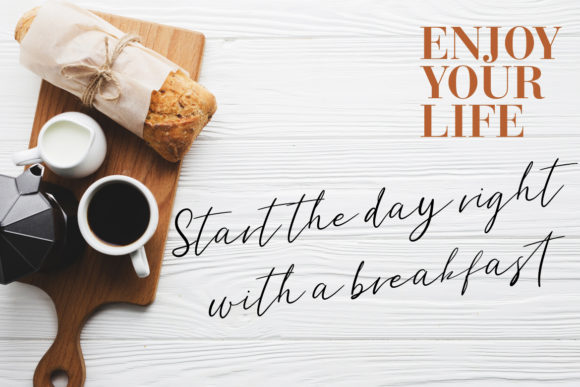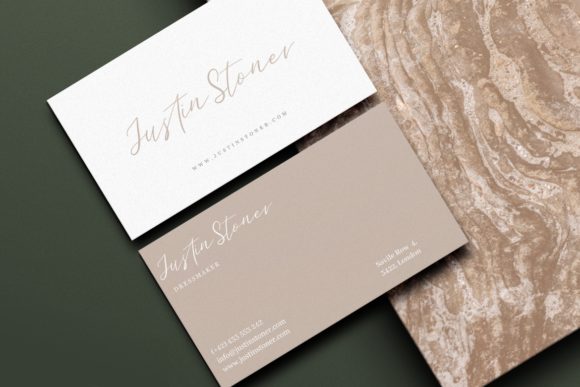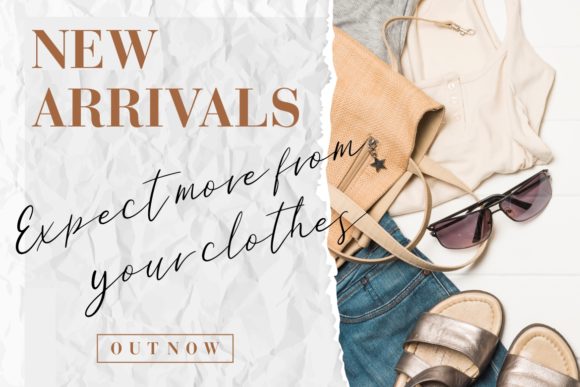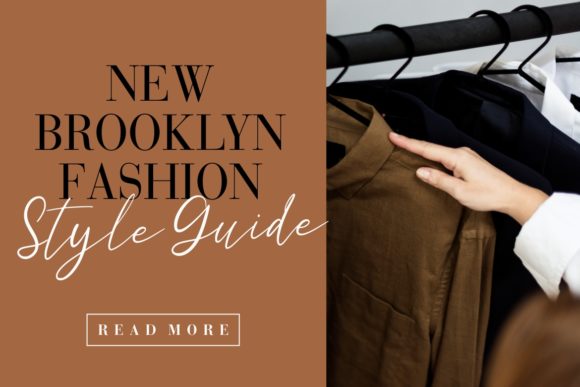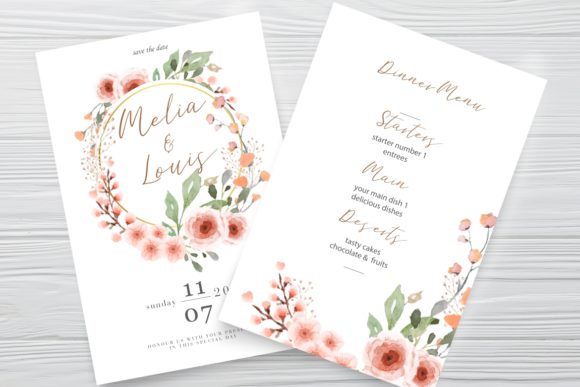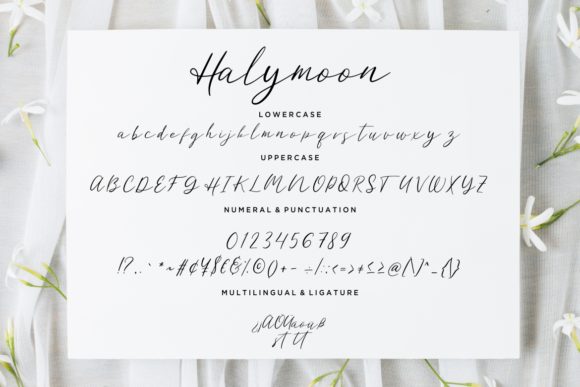
Introducing Halymoon Font: Elevate Your Designs with Elegance and Sophistication
In the world of typography, a font can make or break the aesthetic of a design. For those seeking a touch of elegance and sophistication, Halymoon Font is an exceptional choice. This stylish and incredibly elegant script font has been gaining popularity among designers and crafters for its versatility and stunning appearance.
What Makes Halymoon Font Stand Out?
Halymoon Font is a beautifully crafted script font that exudes a sense of luxury and refinement. Its flowing lines, intricate details, and delicate strokes make it perfect for designs that require a handwritten touch. Whether you’re working on wedding invitations, thank you cards, quotes, greeting cards, logos, or business cards, Halymoon Font is sure to impress.
Wedding planners, event coordinators, and designers will love Halymoon Font for its romantic and whimsical feel. It’s ideal for creating stunning wedding invitations, save-the-date cards, and event programs that set the tone for a memorable occasion. The font’s elegant appearance also makes it suitable for designing thank you cards, congratulations cards, and other stationery items.
Halymoon Font is not limited to wedding and event designs. Its versatility makes it a great choice for a wide range of design applications, including:
- Logos and branding materials: Add a touch of sophistication to your logo and brand identity with Halymoon Font.
- Business cards and stationery: Elevate your business cards, letterheads, and invoices with this elegant font.
- Social media graphics: Use Halymoon Font to create eye-catching social media graphics, quotes, and inspirational messages.
- Packaging design: Add a personal touch to your product packaging with this beautiful script font.
Why Choose Halymoon Font?
There are many script fonts available, but Halymoon Font stands out for its unique characteristics and benefits. Here are a few reasons why designers and crafters love Halymoon Font:
- Elegant and sophisticated: Halymoon Font adds a touch of luxury and refinement to any design.
- Highly legible: Despite its intricate details, Halymoon Font remains highly legible, making it perfect for body text and captions.
- Versatile: This font can be used for a wide range of design applications, from wedding designs to branding and packaging.
Tips for Using Halymoon Font Effectively
To get the most out of Halymoon Font, here are some tips for using it effectively:
- Pair it with contrasting fonts: Combine Halymoon Font with sans-serif or serif fonts to create visual interest and hierarchy.
- Experiment with colors: Try pairing Halymoon Font with different colors, textures, and backgrounds to create unique effects.
- Pay attention to spacing: Adjust the spacing and kerning to ensure that Halymoon Font looks elegant and refined.
Halymoon Font is a stunning script font that can elevate your designs with its elegance and sophistication. Whether you’re a designer, crafter, or DIY enthusiast, this font is sure to inspire your creativity. With its versatility, legibility, and ease of use, Halymoon Font is an excellent choice for a wide range of design applications. So why not give it a try and see how it can transform your designs?